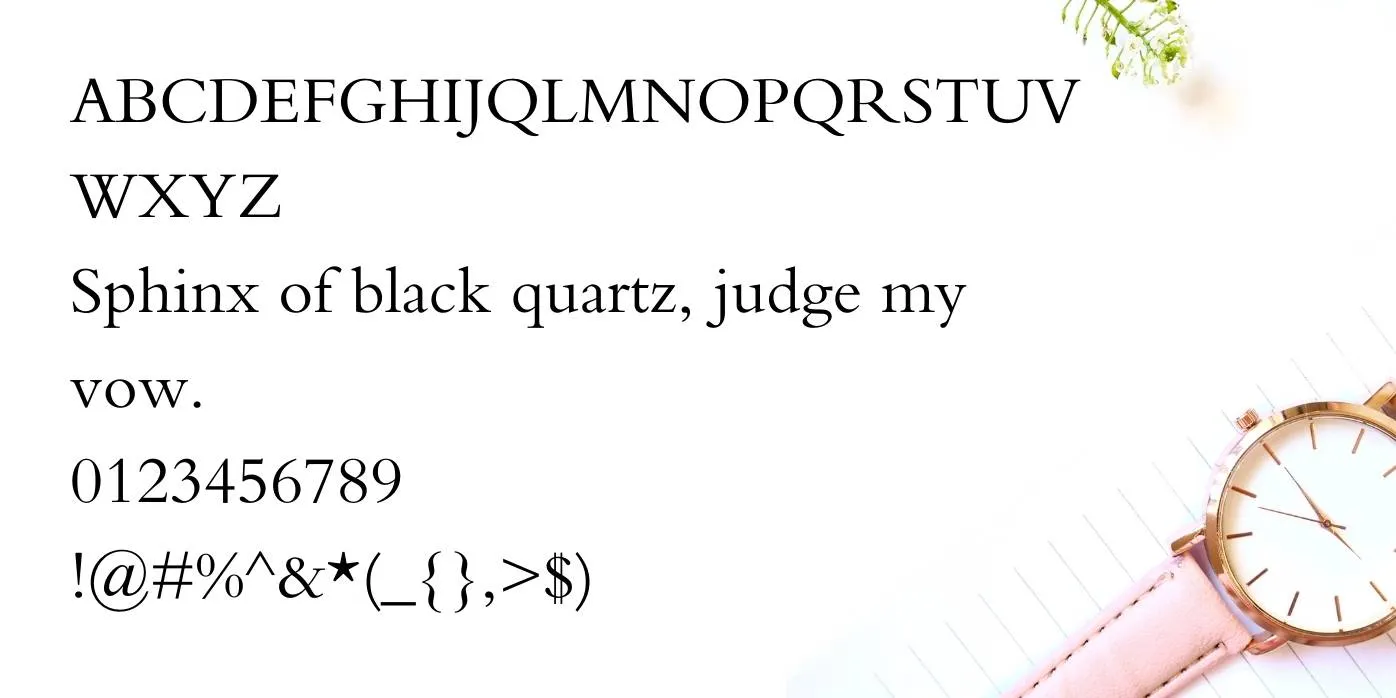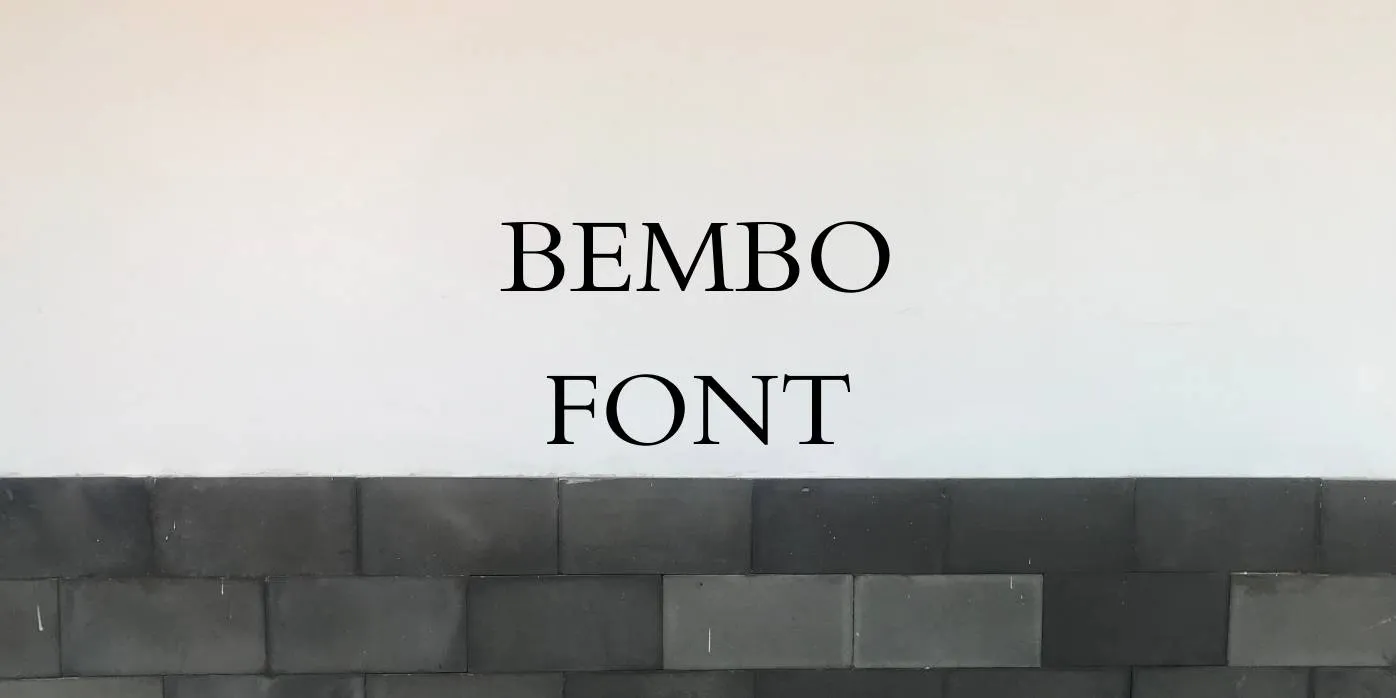
Bembo Font
Bembo Font is the fundamental typeface that is especially good for body text. The producer of this font is Monotype Corporations and the designer of this typeface is Francesco Griffo. it is released at the age of 1928 to 1929. It has OTF and TTF features.
This font is too great because it has both OTF and TTF features and that may beneficial for you. The font family has Bold and Light weights that include Numbers and Numerals, Uppercase and Lowercase Letters, and compulsory symbols also. Its light-weight has OpenType Features while its Bold weight has TrueType Features, and all the styles support immense languages for international users. Its serif and general characters are most alternates to the New Times Roman font that has unlimited usage in this era.